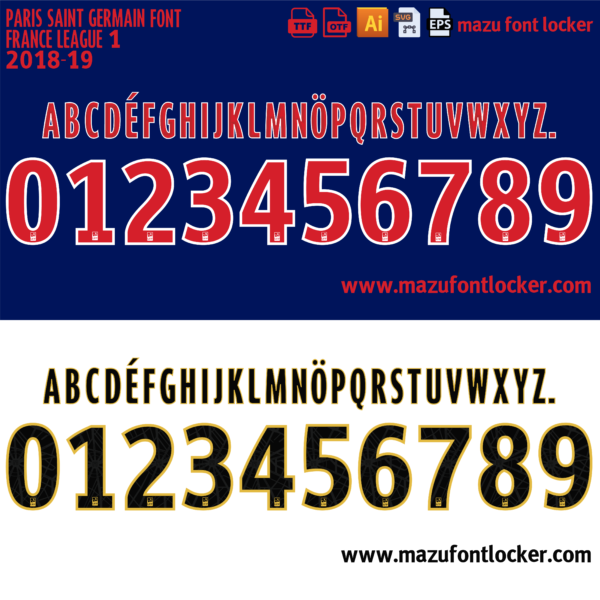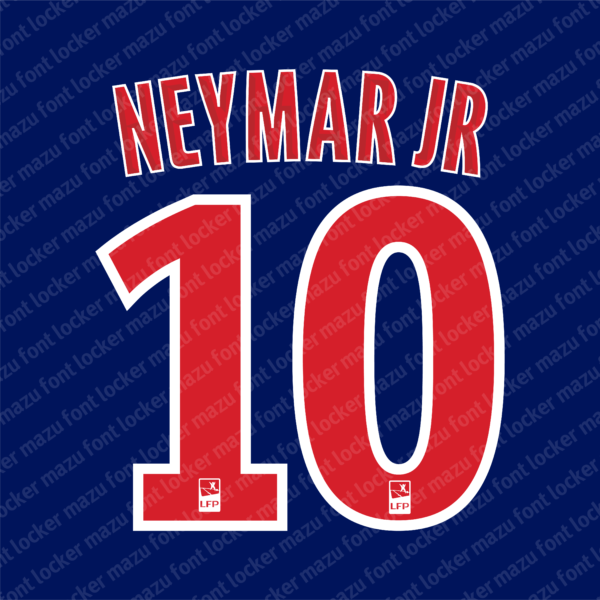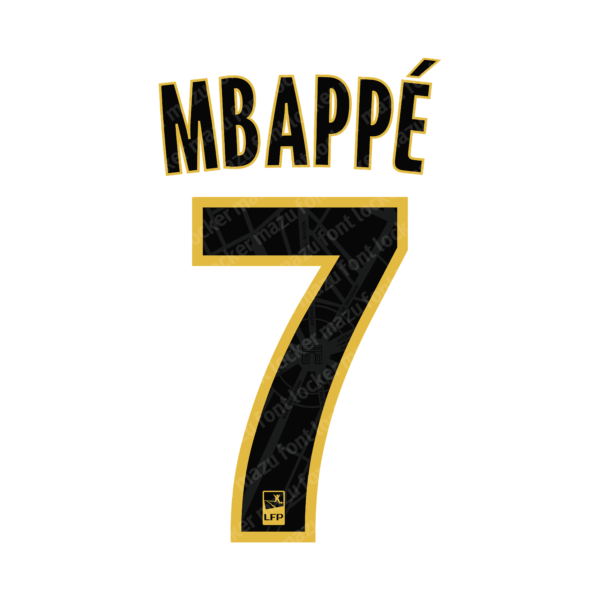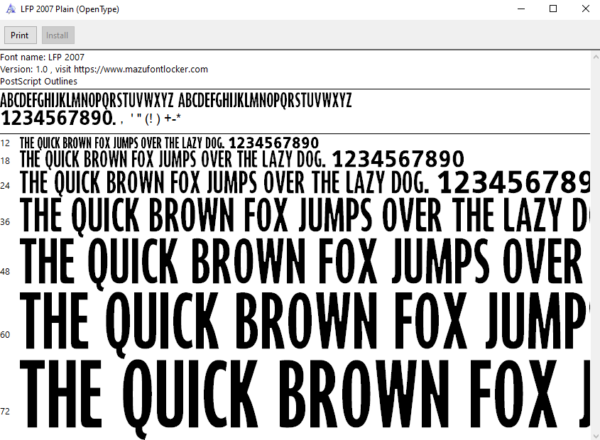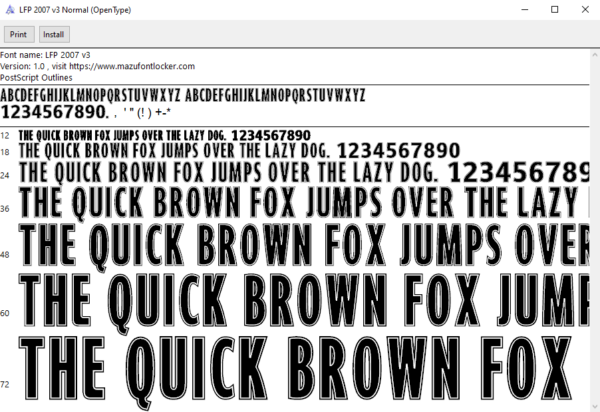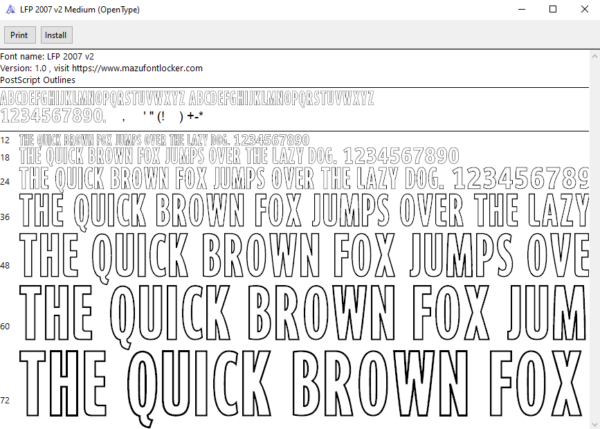
Paris Saint Germain 2018-19 Font Vector – Elegant Parisian Dominance
Paris Saint Germain 2018-19 Font is a high-quality football jersey font vector designed to replicate the official lettering and numbering style used during the 2018-19 season. This Paris Saint Germain 2018-19 font is perfect for designers, football fans, and creators who want accurate and professional jersey customisation.
Inspired by the official kit of Paris Saint Germain, this Paris Saint Germain 2018-19 font delivers a clean and authentic match-day appearance. Every letter and number has been carefully recreated to match the real jersey design, ensuring your projects look realistic and professional.
Paris Saint Germain 2018-19 Font Vector – Authentic Jersey Lettering
Paris Saint Germain 2018-19 Font font is a high-quality football jersey font vector created to replicate the official lettering and numbering style used during the iconic 2018-19 Season. Perfect for designers, football fans, and jersey customisation projects, this font set delivers an authentic and professional match-day appearance.
Inspired by the original Paris Saint Germain 2018-19 team kit, every letter and number has been carefully recreated to ensure accurate retro styling for both digital and print projects.
🔥 Paris Saint Germain 2018-19 Font Features
- Authentic 2018-19 Paris Saint Germain jersey lettering style
The authentic lettering style helps recreate the classic look of the Paris Saint Germain 2018-19 kit with professional accuracy.
Unlike generic jersey fonts, this set is designed with a strong focus on authenticity and accuracy. Every detail is based on the original match lettering style used during the 2018-19 season, helping designers and collectors create realistic football shirt designs.
This Paris Saint Germain 2018-19 font vector set is designed for authentic football jersey customization and works perfectly for retro football projects, collector designs, and professional sportswear artwork.